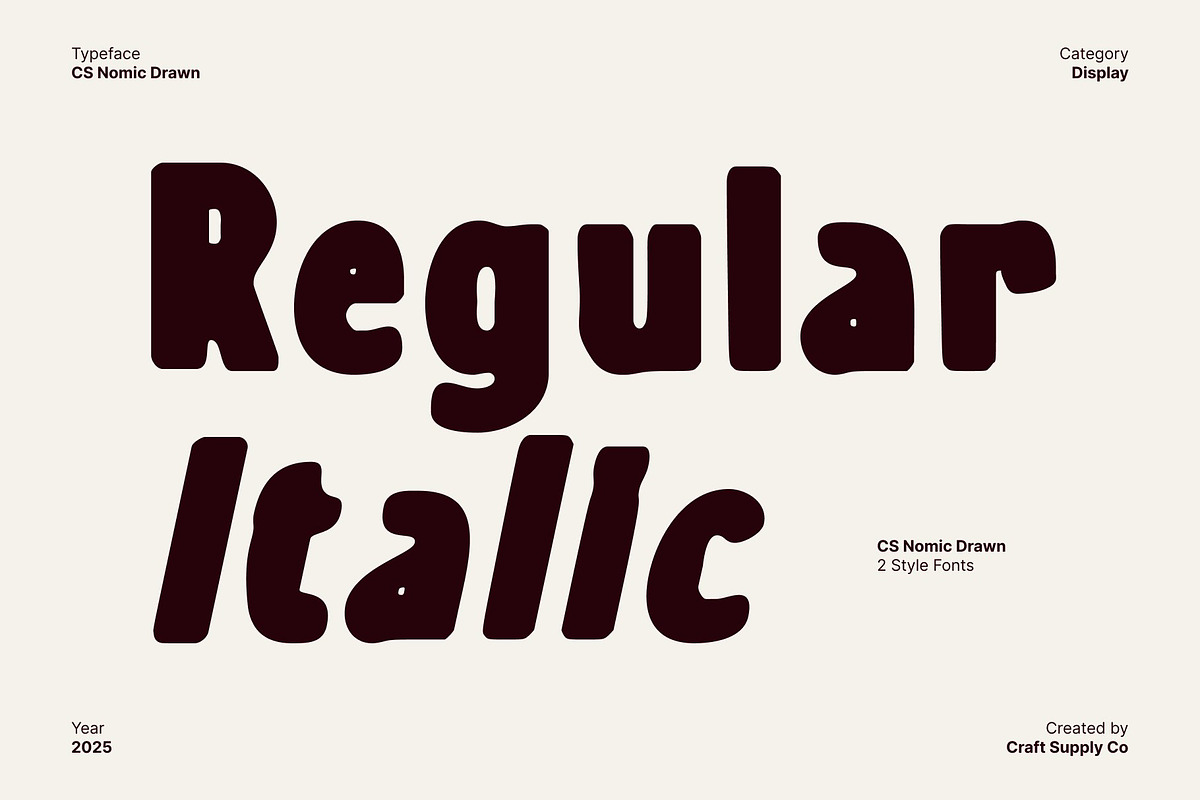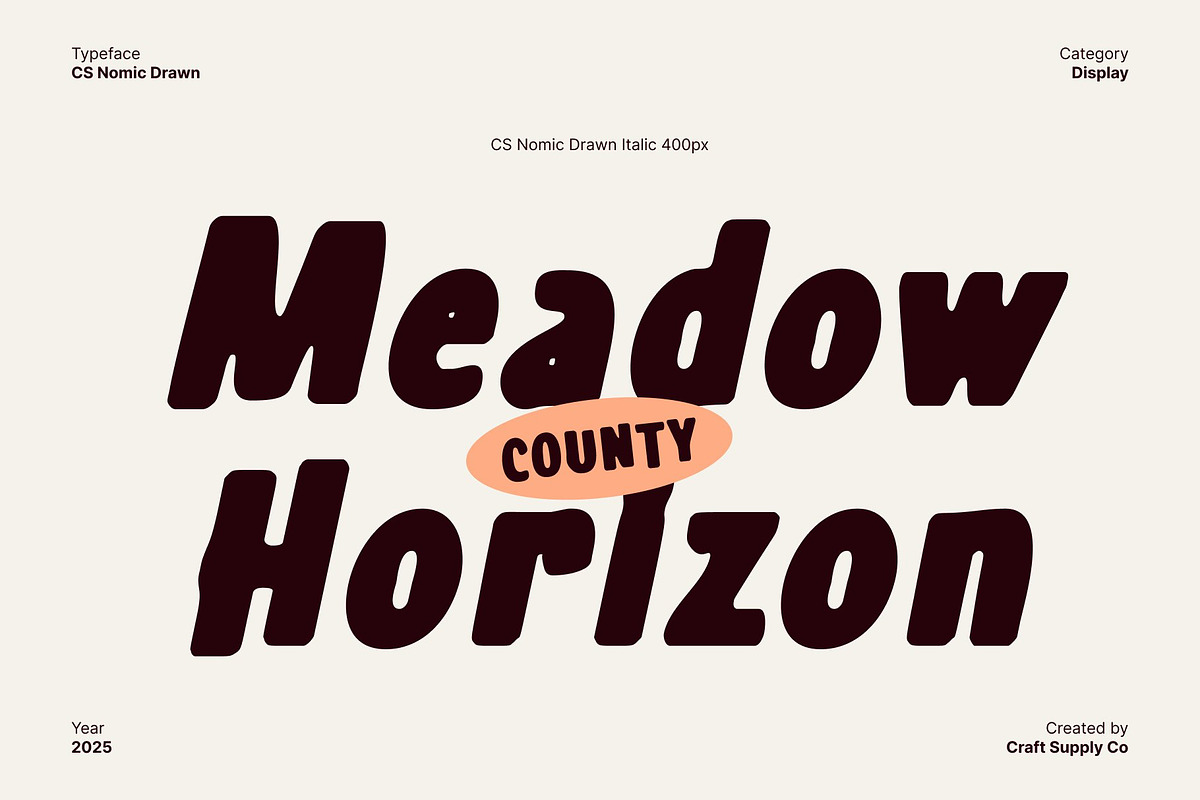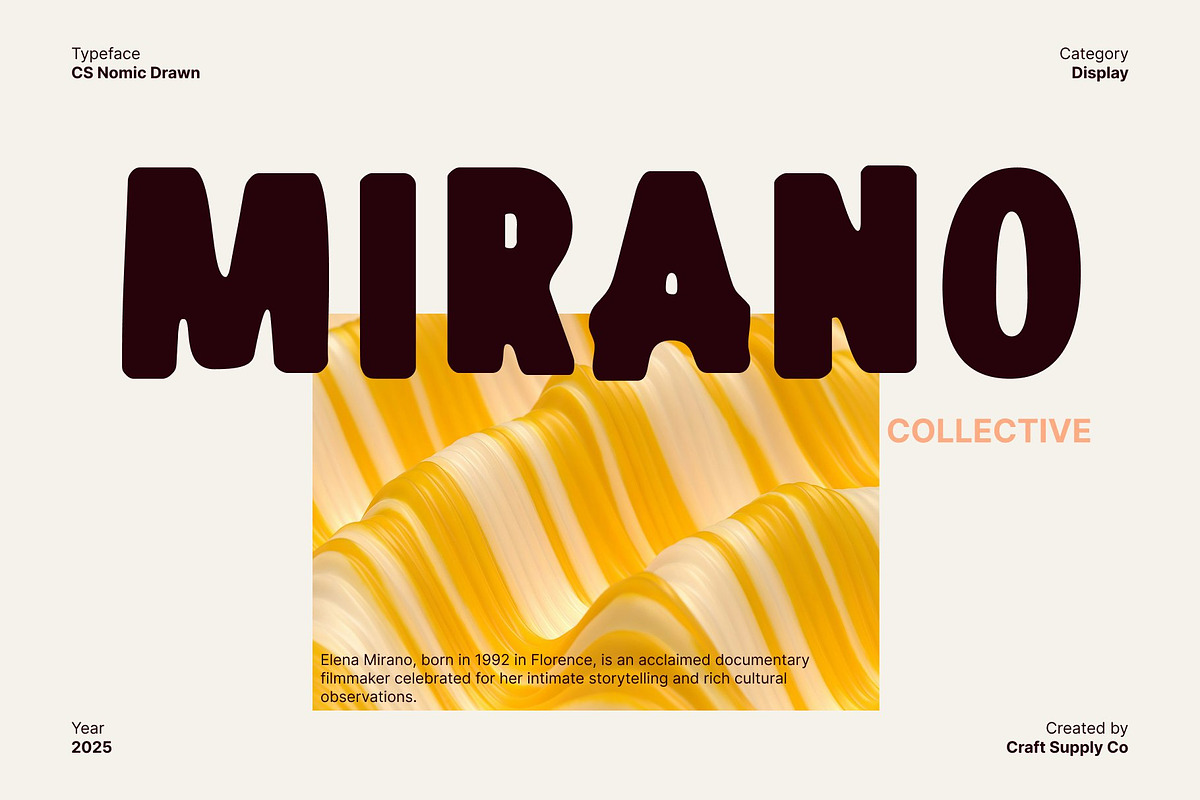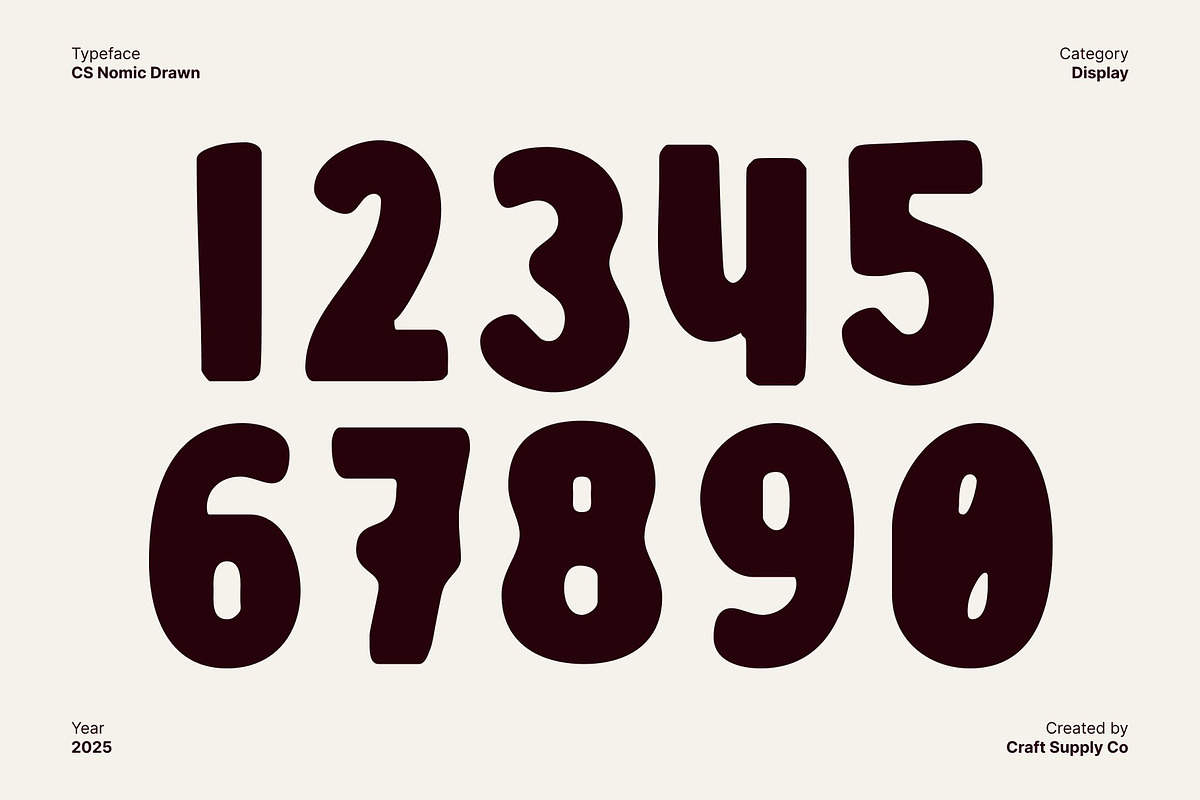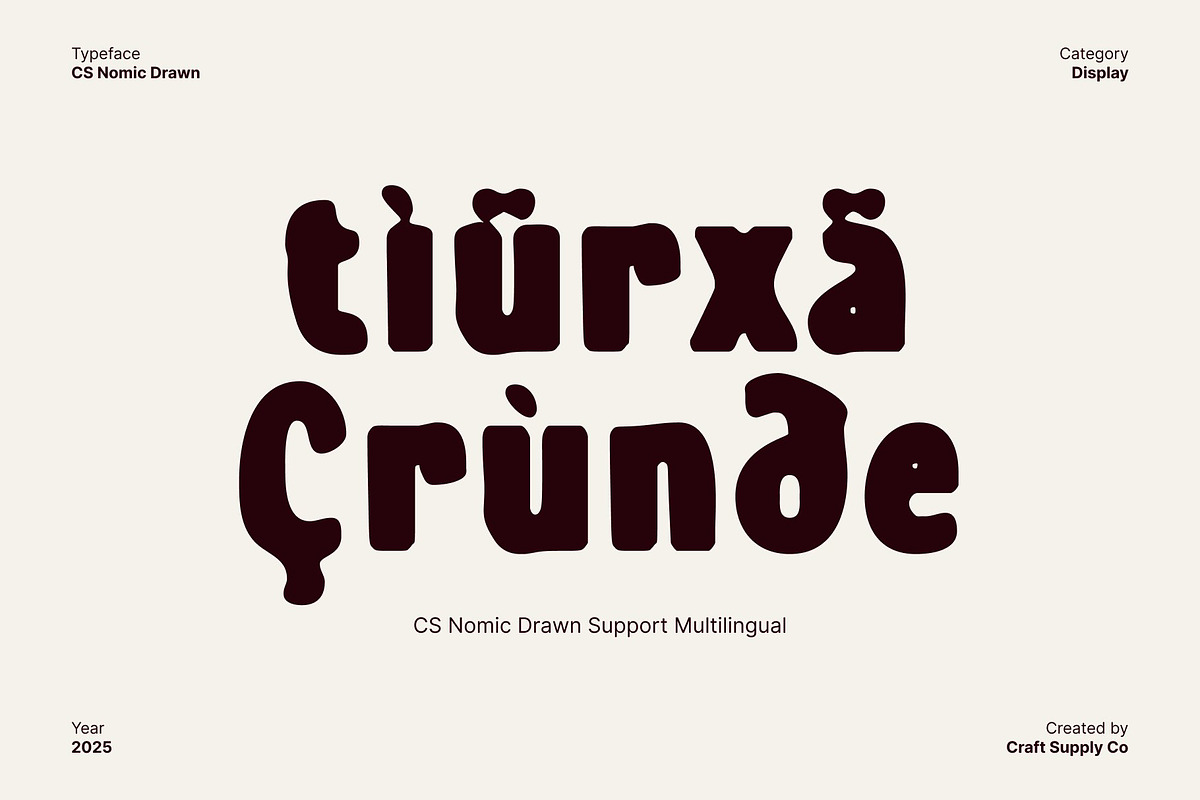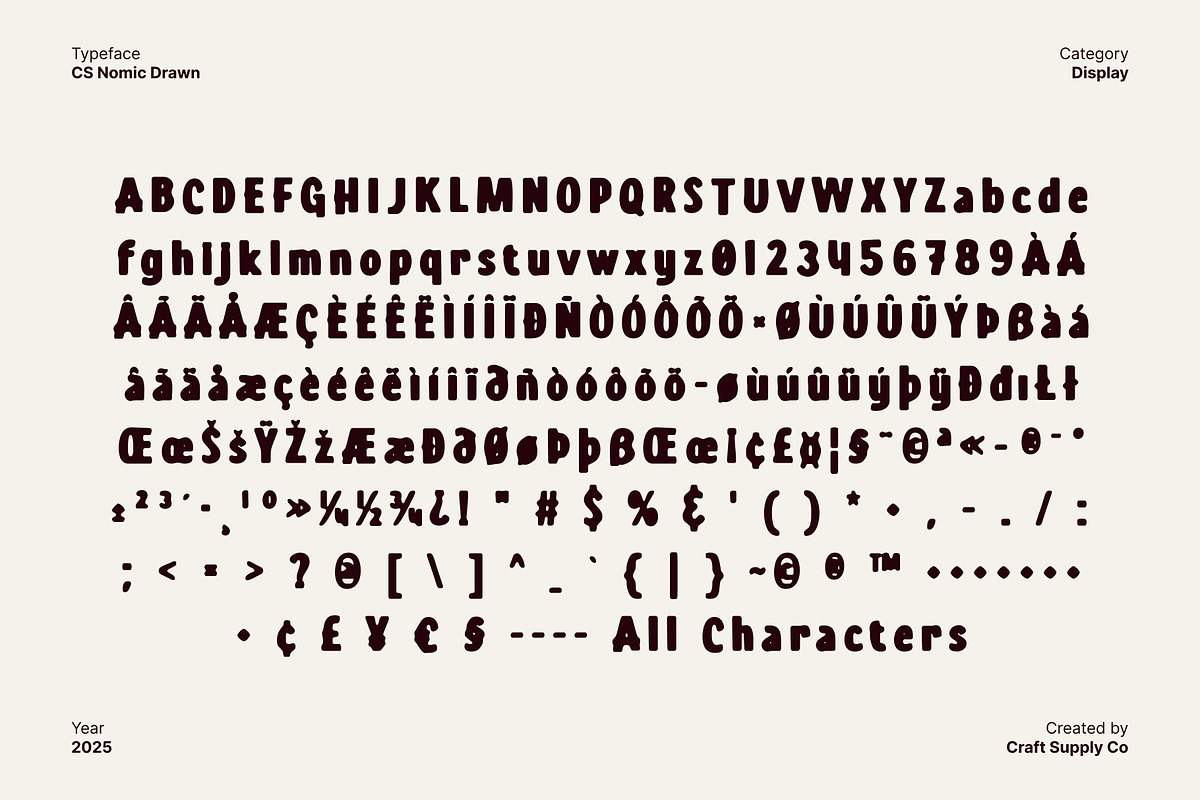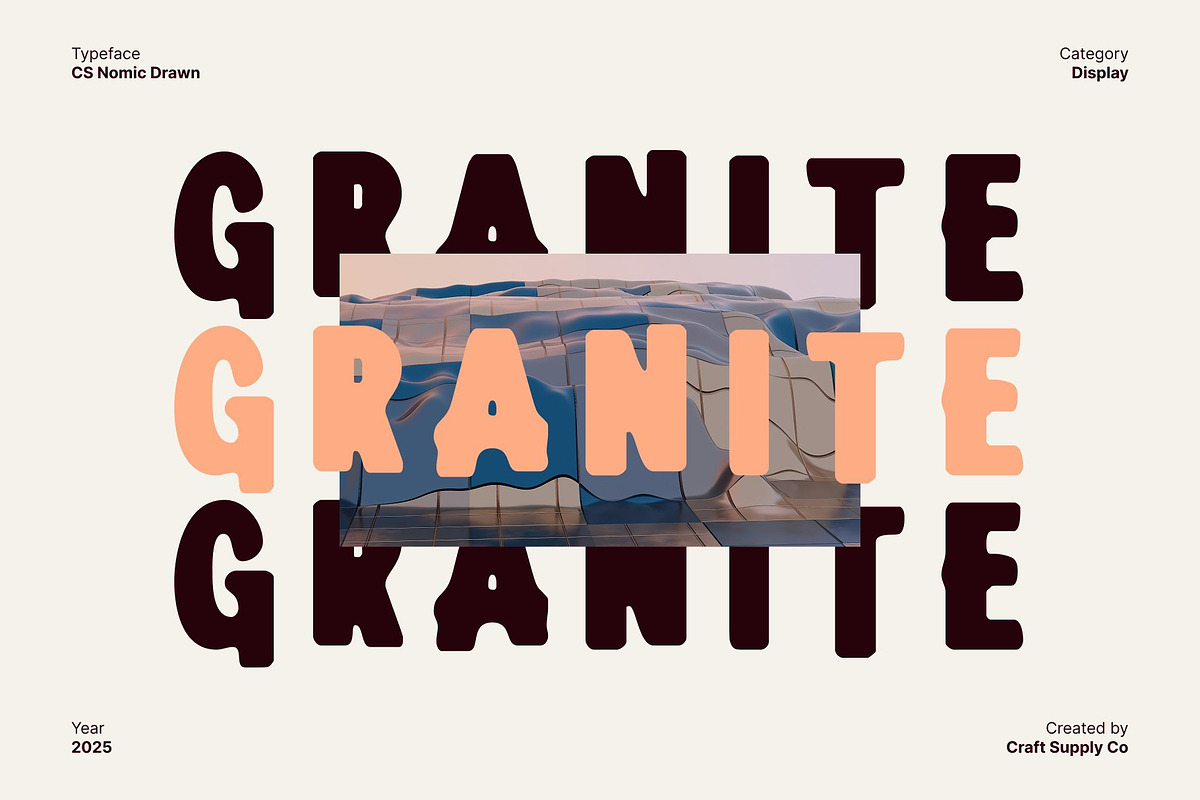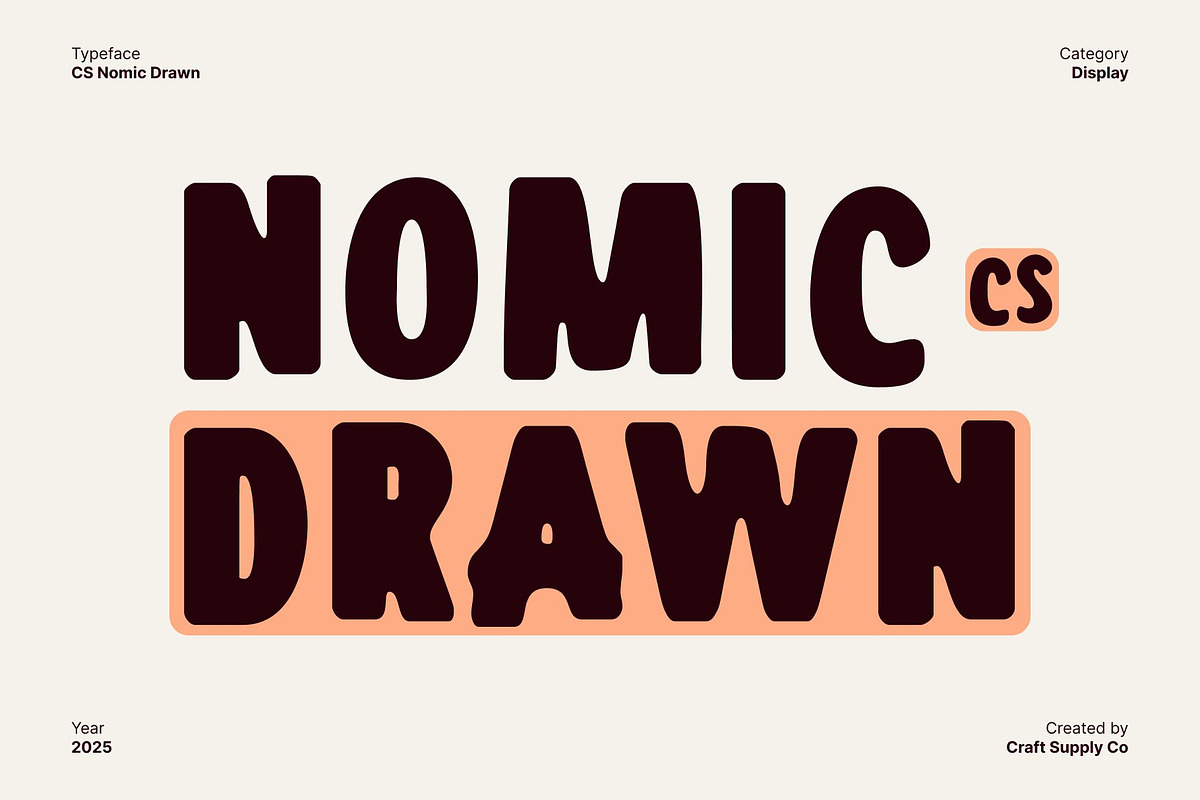
CS Nomic Drawn
CS Nomic Drawn: Playful Sans Serif Cartoon Font
Vibrant Hand-Drawn Style for Fun Designs This font brings a lively sans serif, hand-drawn energy to your projects. Its playful shapes and colorful cartoon-inspired style create an engaging, cheerful atmosphere that captures attention instantly, making every design feel dynamic and full of personality.
Ideal for Kids’ Branding and Entertainment Designed with bold, expressive letters, is perfect for children’s products, animated movie posters, and playful branding. Its fun, approachable aesthetic ensures your messaging connects with younger audiences while remaining visually striking.
Explosive and Energetic Expression The font’s exaggerated forms and comic-style features add a sense of movement and excitement. Each character pops off the page, enhancing the lighthearted and whimsical tone of any creative project.
Versatile for Various Fun-Focused Applications Whether for posters, packaging, social media graphics, or editorial content, adapts seamlessly to playful, engaging contexts. Its hand-drawn, cartoon charm makes it the perfect choice for projects that aim to entertain, delight, and leave a lasting impression.